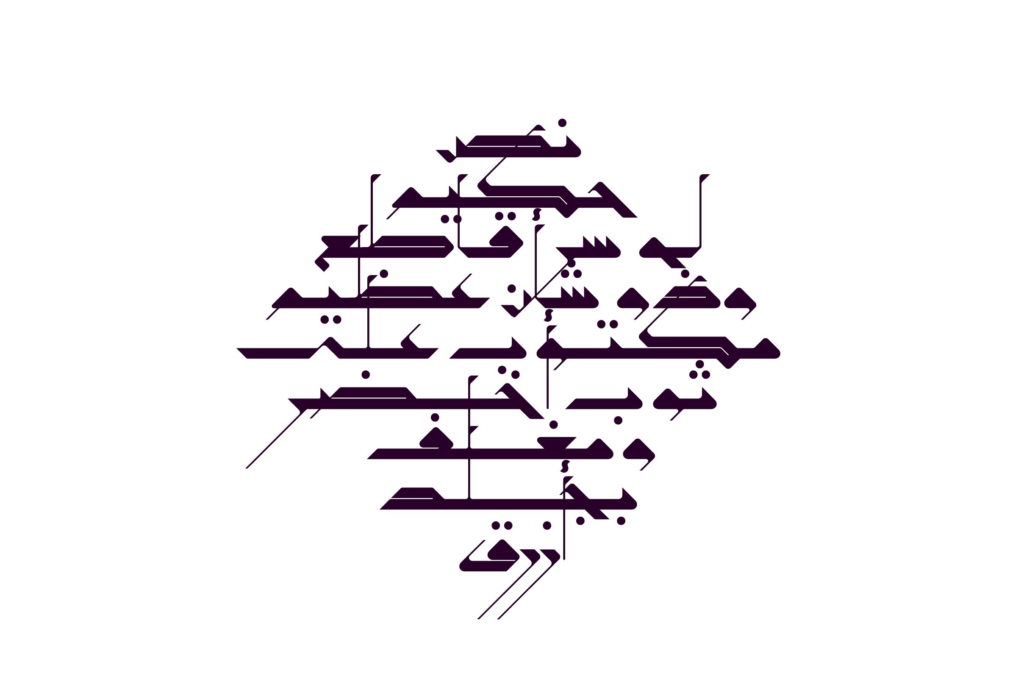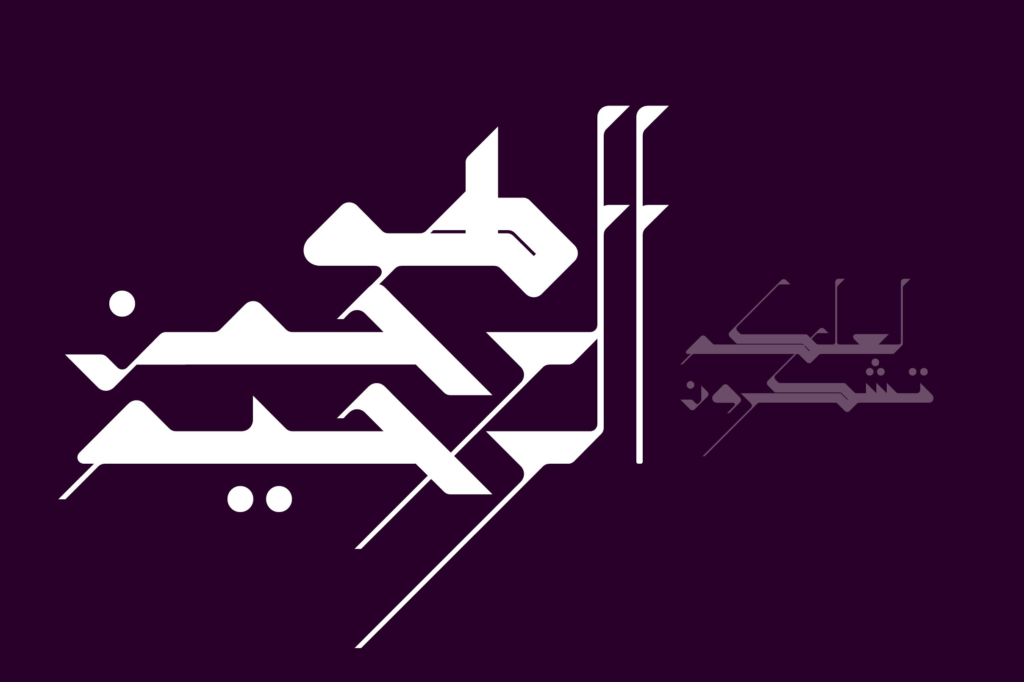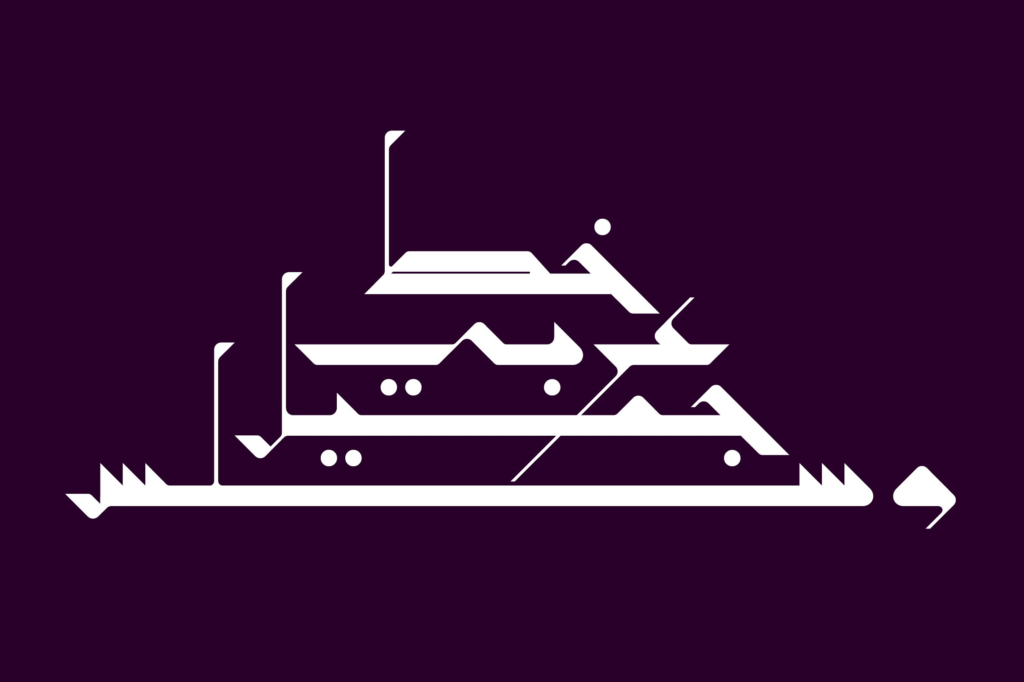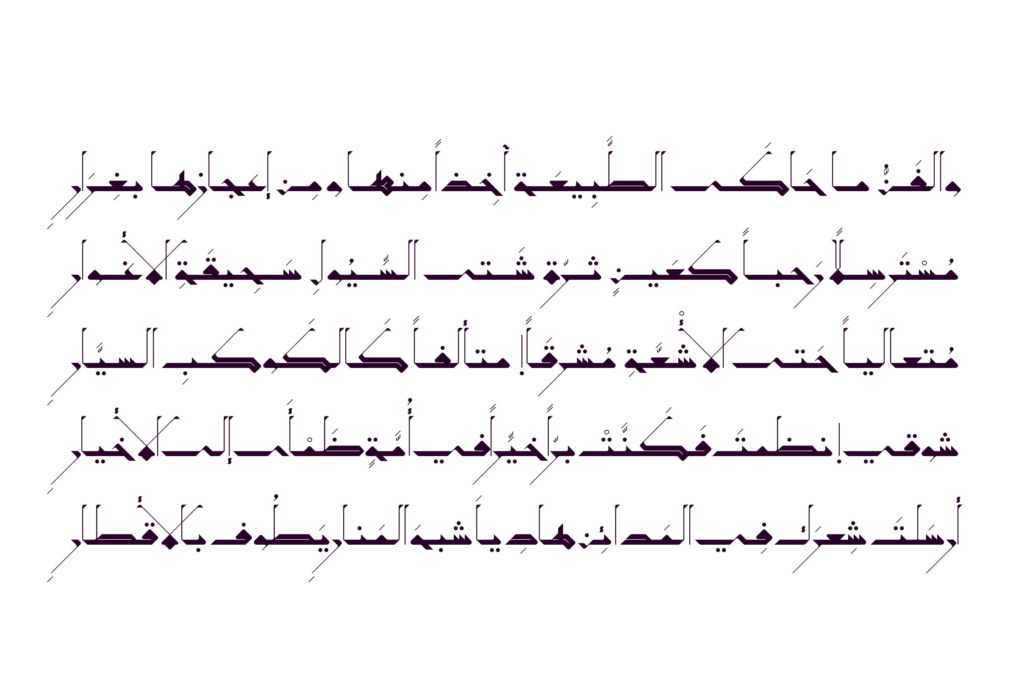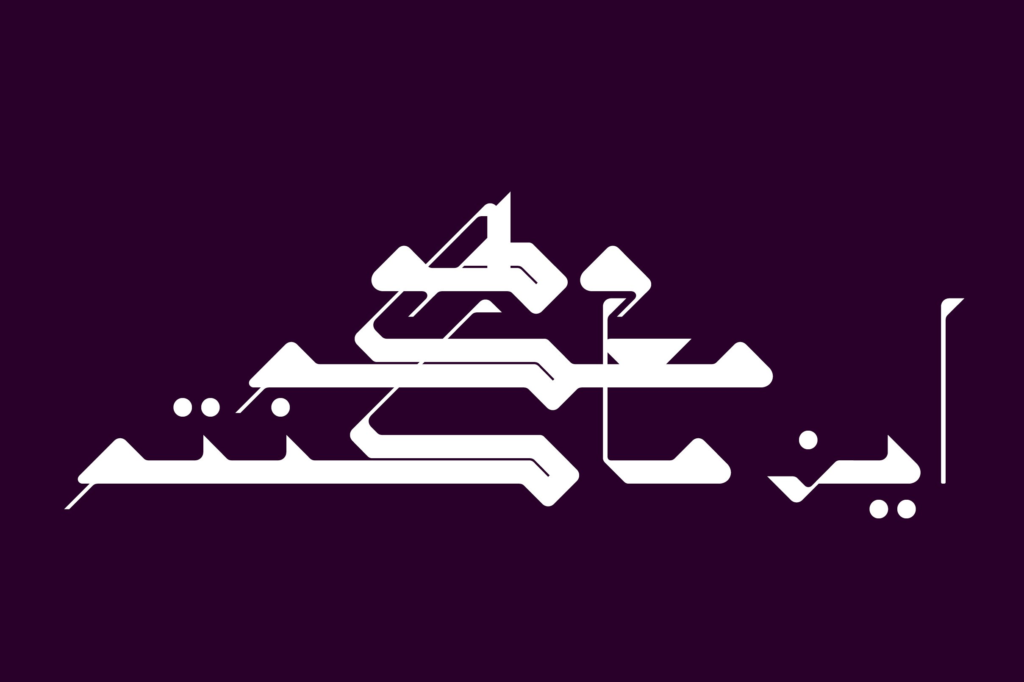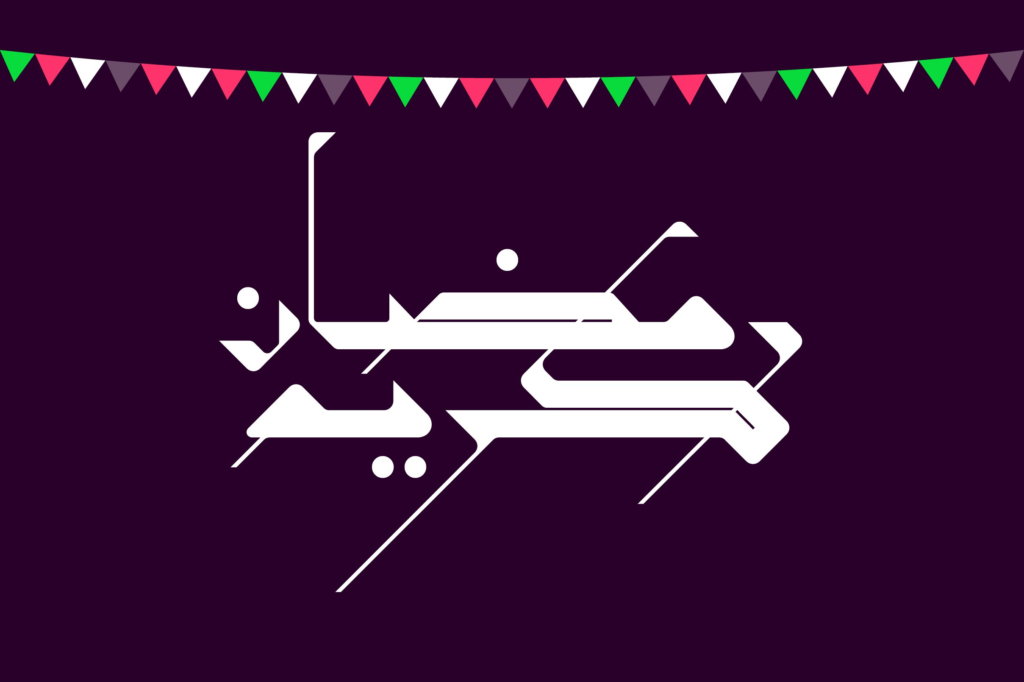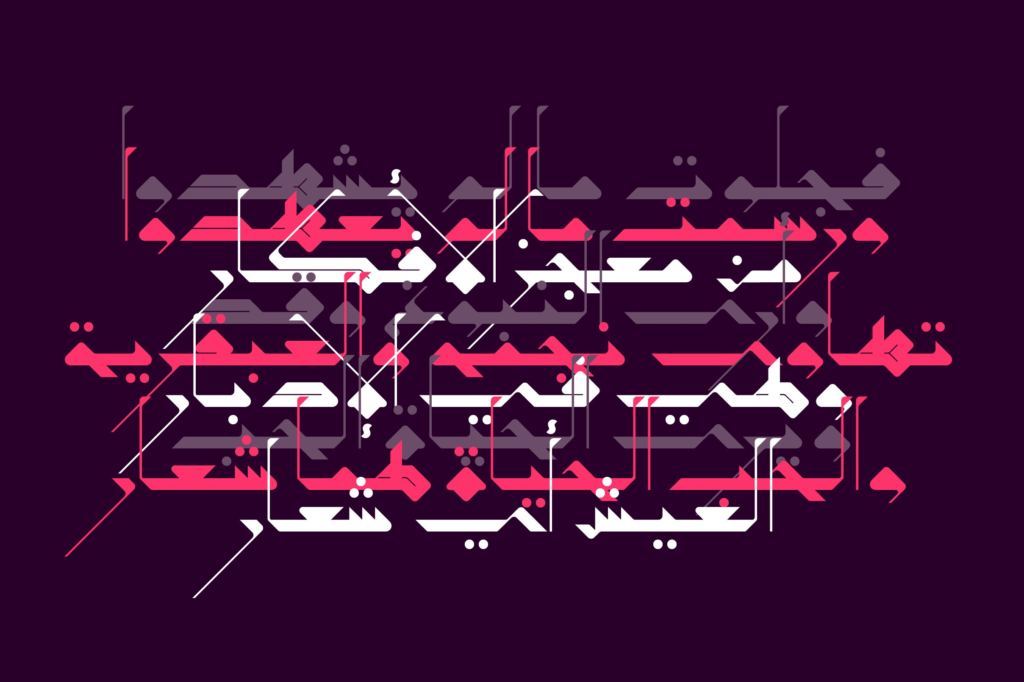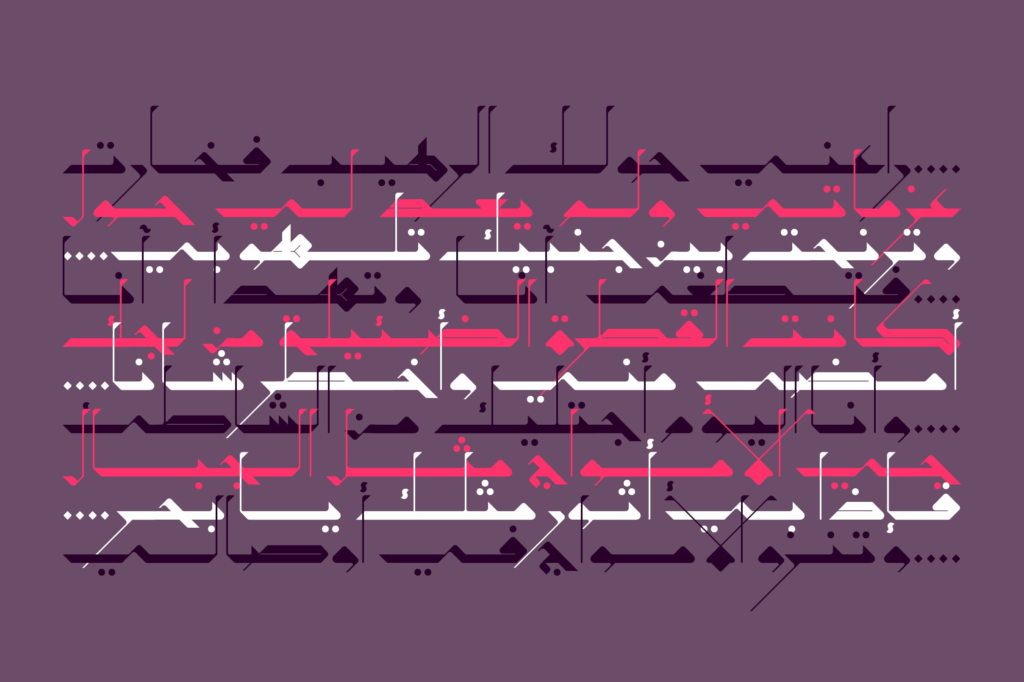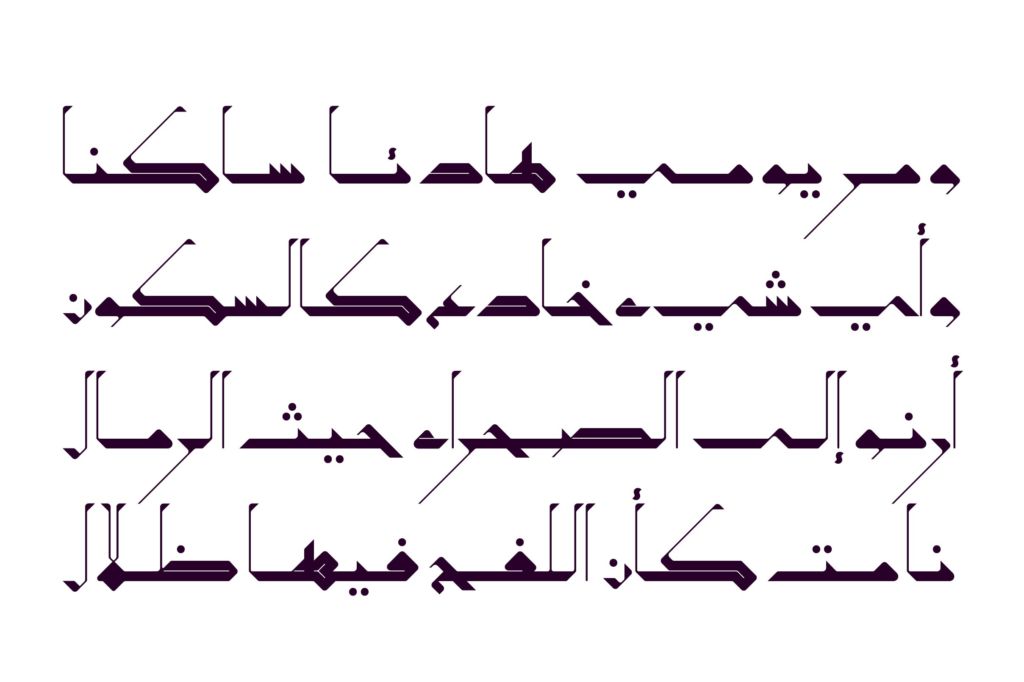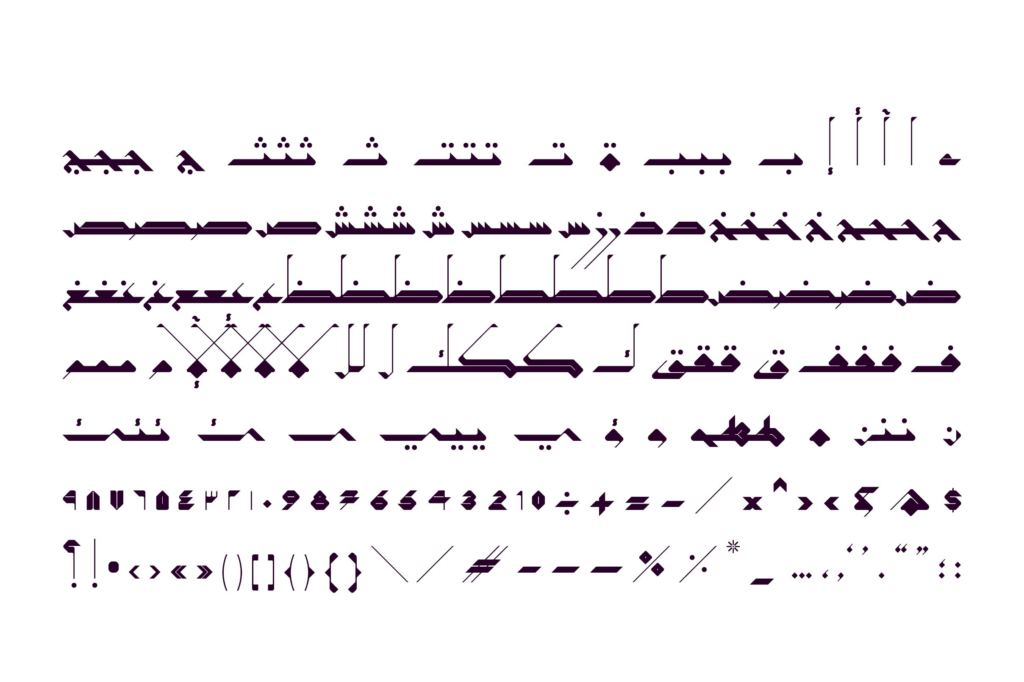
Takween Font
Tekin is a thoughtfully crafted Arabic typeface that draws inspiration from the graceful Nastaliq calligraphic tradition. With its flowing curves and elegant proportions, this font brings authentic calligraphic beauty to contemporary design projects while maintaining excellent readability.
Nastaliq-Inspired Design:
- Graceful, flowing letterforms inspired by Nastaliq calligraphy
- Elegant curves with traditional character
- Balanced proportions for excellent readability
- Authentic calligraphic feel with contemporary polish
- Distinctive, memorable appearance
Arabic Script:
- Complete Arabic character set
- Full support for diacritics and marks
- Proper character connections and positioning
- Flowing Nastaliq styling across all letters
- Optimized for display applications
- Titles & Headlines: Elegant display typography
- Logos: Memorable brand identities with cultural depth
- Invitations: Sophisticated event announcements
- Posters: Artistic promotional materials
- Book Covers: Beautiful publication design
- Packaging: Refined product presentation
- Social Media: Elegant, engaging content
- Art Projects: Creative works needing calligraphic beauty
- Nastaliq Beauty: Flowing, elegant calligraphic style
- Authentic Character: Traditional inspiration with modern execution
- Professional Quality: High-caliber font for commercial use
- Versatile Application: Perfect for titles, logos, and creative projects
Key Features of Tekin Font:
- Nastaliq-inspired Arabic calligraphic design
- Complete Arabic character set
- Flowing, elegant letterforms
- Graphic designers seeking calligraphic Arabic typography
- Brand and logo creators
- Wedding and event stationery designers
- Publishers and editorial designers
- Anyone needing elegant, flowing Arabic fonts
Takween is an Arabic display font that is inspired by the Mashrequi writing style. The word Takween is the Arabic for composition. The font mainly suits typographic compositions, ornamental designs and abstracts. It also suits branding, print and web design.